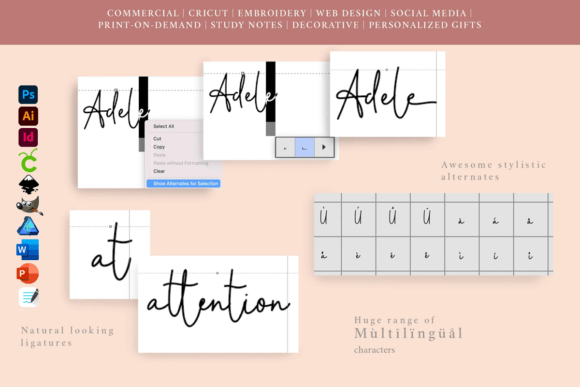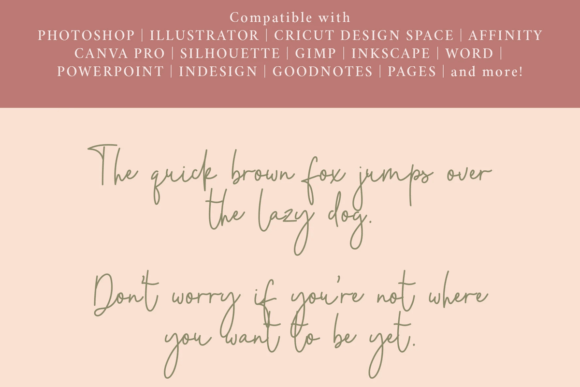
Introduction to Adellaide Font
Adéllaide font is a special type of elegant writing that uses smooth, flowing lines.
It looks sophisticated and graceful, perfect for adding a touch of style to any project .
Key Features of Adellaide Font
Why Choose Adellaide Font?